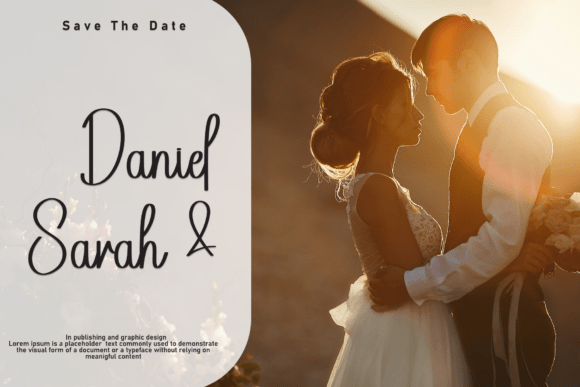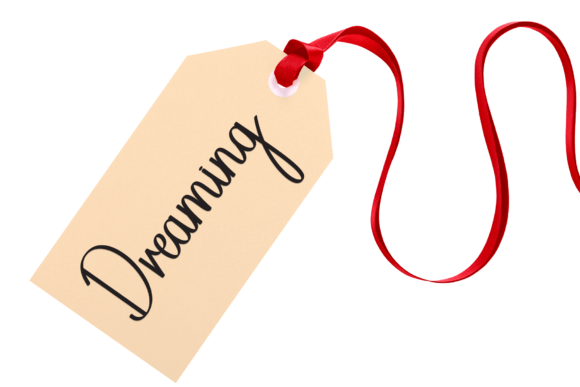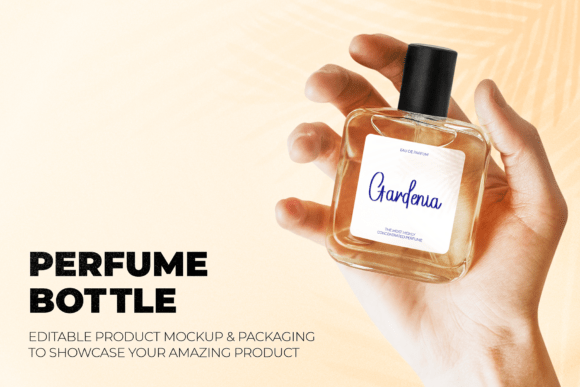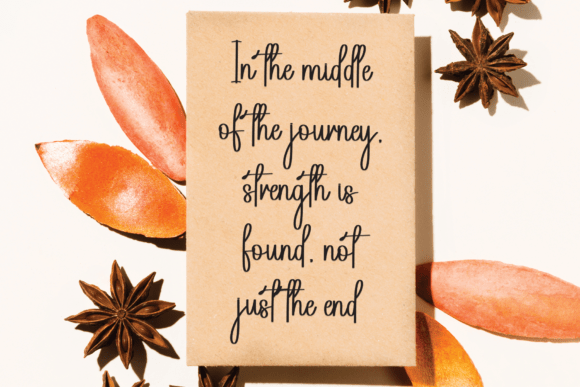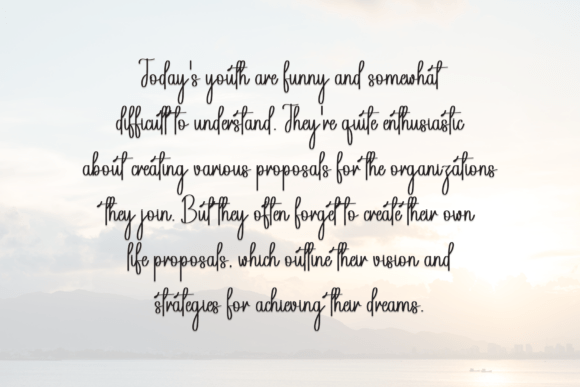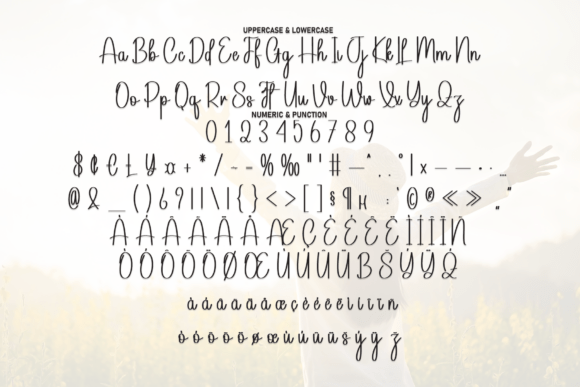
Introducing Brightday Font: The Joyful and Uplifting Handwritten Font
Are you looking for a font that can add a touch of personality to your designs? Look no further than Brightday Font! This joyful and uplifting handwritten font is perfect for designers and crafters who want to bring a hand-lettered feel to their projects. With its casual charm and whimsical swashes, Brightday Font is ideal for a variety of applications, including planners, journaling, inspirational quotes, lifestyle branding, and more.
The Characteristics of Brightday Font
Brightday Font is a unique and eye-catching font that is characterized by its playful and carefree feel. The font features:
- Handwritten style: Brightday Font has a warm and personal touch, making it perfect for designs that require a human feel.
- Casual charm: The font has a relaxed and informal vibe that makes it ideal for creative projects.
- Whimsical swashes: Brightday Font features beautiful swashes that add a touch of elegance and sophistication to any design.
- Full of personality: The font has a distinct character that makes it stand out from other fonts.
Uses of Brightday Font
Brightday Font is a versatile font that can be used in a variety of applications, including:
- Planners and journals: Add a personal touch to your planners and journals with Brightday Font.
- Inspirational quotes: Use Brightday Font to create motivational and uplifting quotes that inspire and motivate.
- Lifestyle branding: Brightday Font is perfect for lifestyle brands that want to convey a sense of joy and positivity.
- Social media graphics: Use Brightday Font to create eye-catching social media graphics that stand out.
- Stationery and greeting cards: Add a touch of personality to your stationery and greeting cards with Brightday Font.
Why Designers and Crafters Love Brightday Font
Designers and crafters love Brightday Font for several reasons:
- Easy to read: Brightday Font is clear and easy to read, making it perfect for designs that require a high level of legibility.
- Highly versatile: Brightday Font can be used in a variety of applications, from digital designs to print materials.
- Unique and eye-catching: Brightday Font has a distinct character that makes it stand out from other fonts.
- Time-saving: With Brightday Font, designers and crafters can save time and effort by using a pre-designed font that is ready to use.
Tips for Using Brightday Font
Here are some tips for using Brightday Font:
- Use it with a digital drawing tablet: Brightday Font looks great when used with a digital drawing tablet.
- Experiment with colors and textures: Brightday Font looks great with a variety of colors and textures.
- Pair it with other fonts: Brightday Font can be paired with other fonts to create a unique and eye-catching design.
- Use it for titles and headings: Brightday Font is perfect for titles and headings, where its playful and carefree feel can really shine.
Brightday Font is a joyful and uplifting handwritten font that is perfect for designers and crafters who want to add a touch of personality to their designs. With its casual charm and whimsical swashes, Brightday Font is ideal for a variety of applications, from planners and journaling to inspirational quotes and lifestyle branding. Whether you’re a designer or crafter, Brightday Font is a great addition to your font collection.